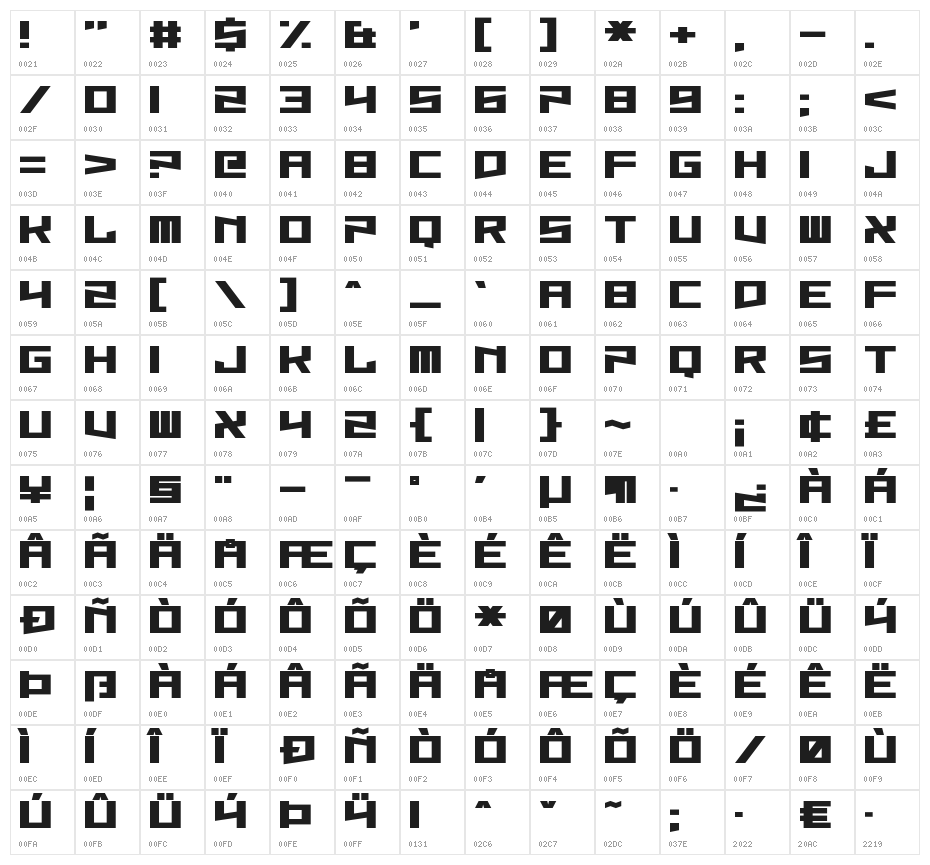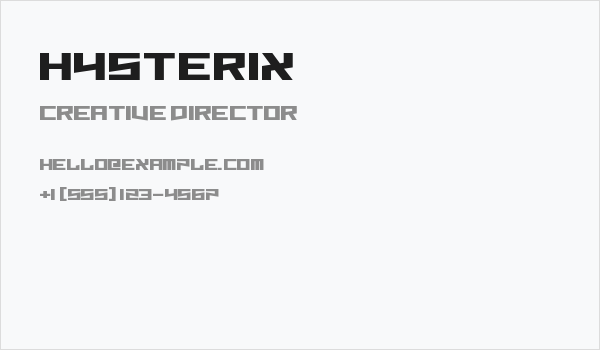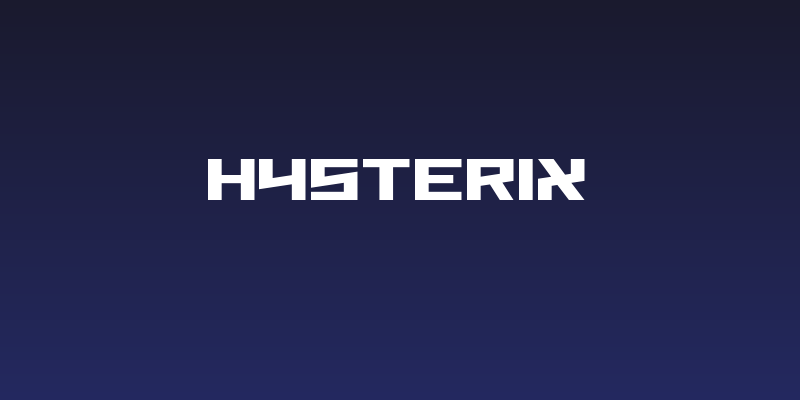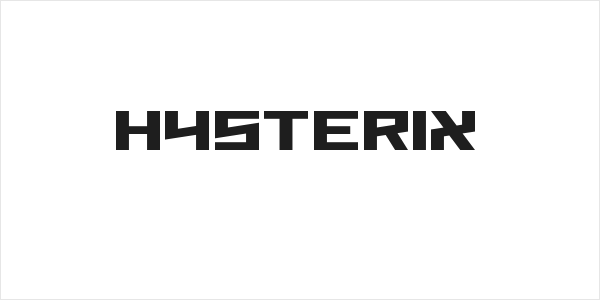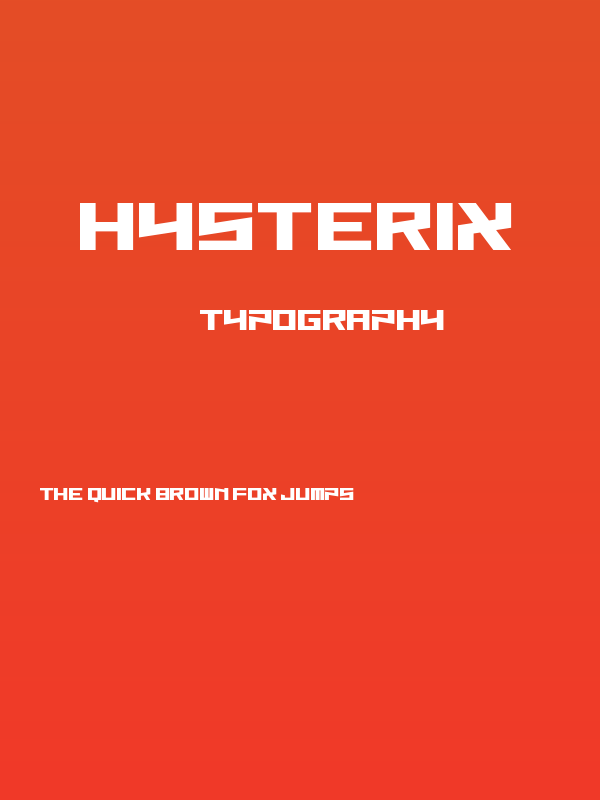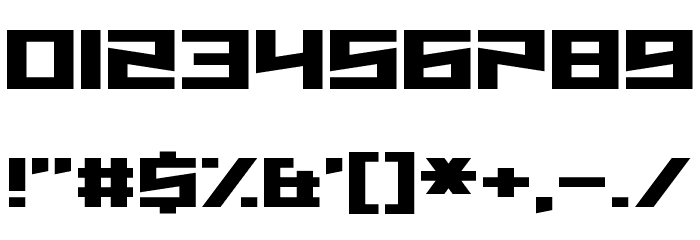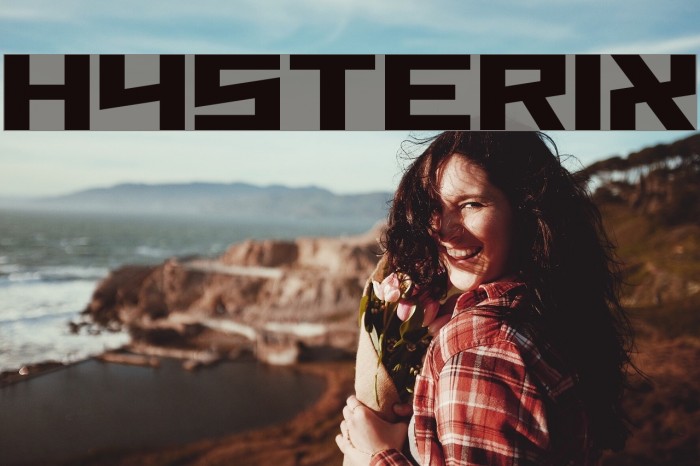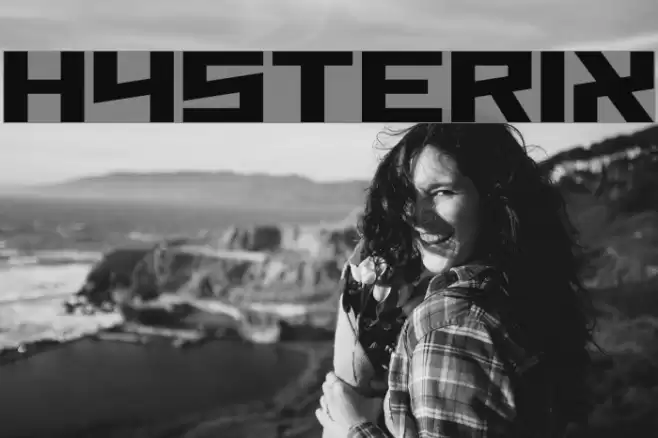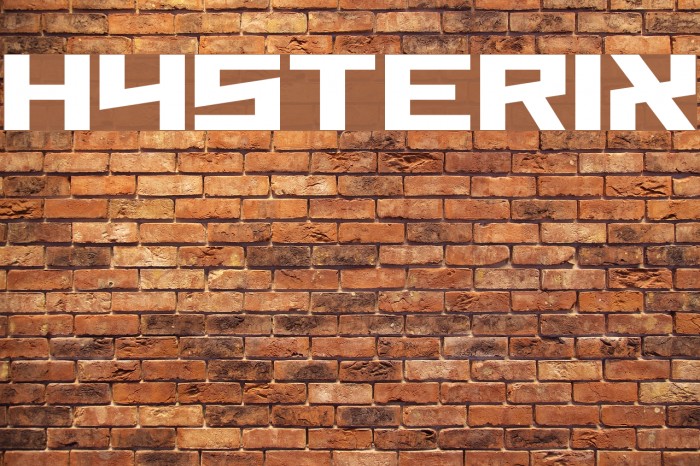
Hysterix Font
Hysterix Description
This font features a bold and geometric design with sharp angles and a futuristic aesthetic. The characters are constructed with straight lines and angular cuts, giving it a distinct and edgy appearance. The uppercase and lowercase letters maintain a consistent style, with a strong emphasis on symmetry and uniformity. The numbers and special characters follow the same geometric pattern, ensuring a cohesive look across all elements. This font is ideal for projects that require a modern and striking visual impact.
| Proposed Projects | Ideal for sci-fi themed posters, video game titles, tech branding, and modern advertising campaigns. |